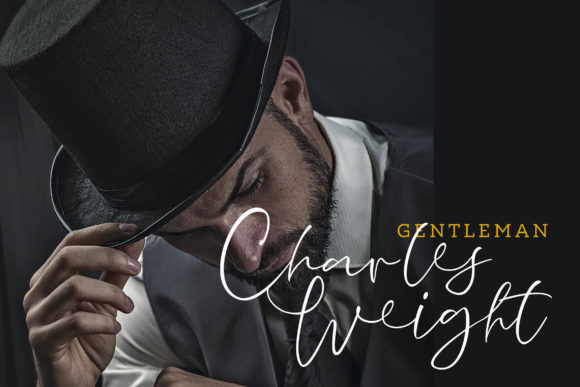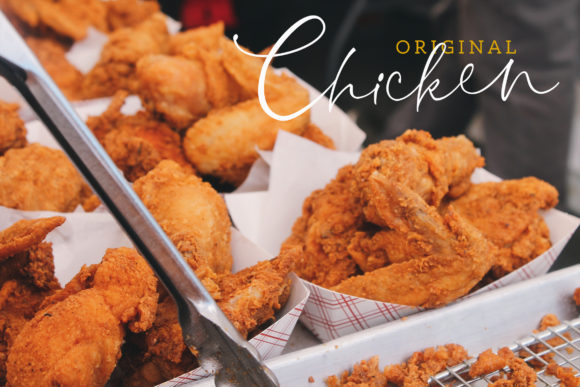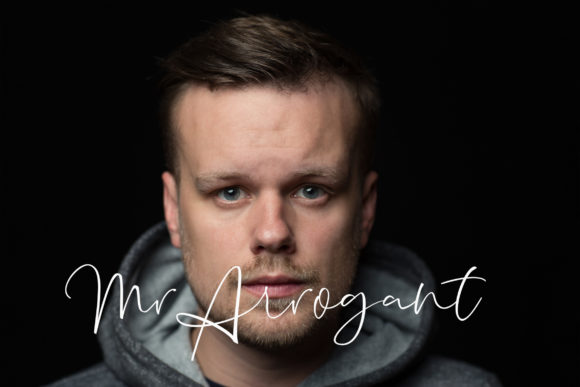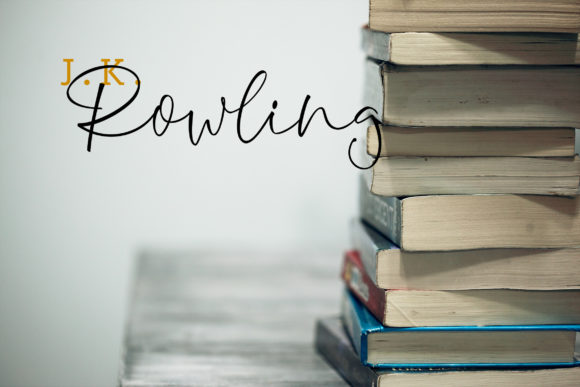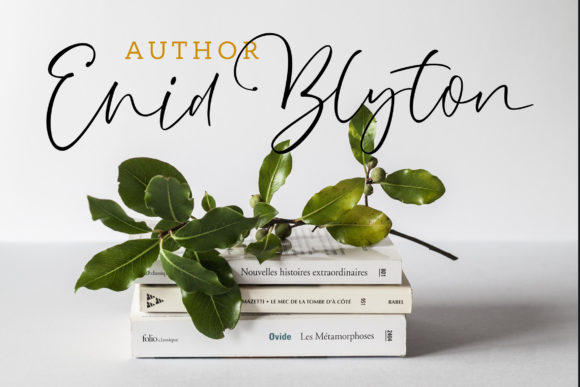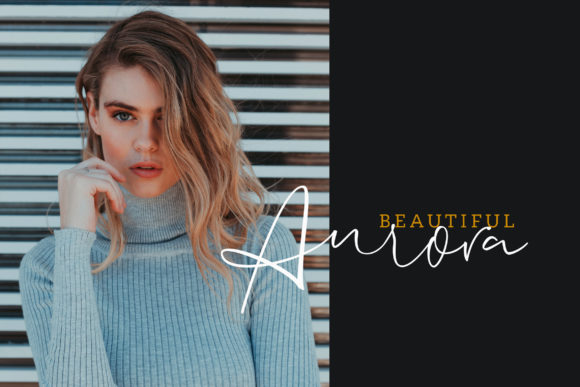
Aussiente Font: A Timeless Classic for Designers and Crafters
The Aussiente font is a beautiful, classic signature font that has been inspired by the elegance of traditional posters. Its unique design makes it perfect for a wide range of creative projects, from logos and letterheads to posters, apparel, labels, and much more. In this article, we’ll take a closer look at the Aussiente font, its features, and how it can be used to elevate your designs.
A Classic Signature Font
The Aussiente font is a classic signature font that exudes elegance and sophistication. Its design is reminiscent of traditional posters, with flowing lines and intricate details that give it a unique and distinctive look. The font is perfect for designers and crafters who want to add a touch of classic style to their projects.
Inspired by Traditional Posters
The Aussiente font was inspired by the classic posters of the past, which were known for their bold typography and eye-catching designs. The font’s design is influenced by the art of poster making, with its bold lines, flowing curves, and intricate details. This inspiration is evident in the font’s unique design, which is both elegant and eye-catching.
The Aussiente font is incredibly versatile and can be used for a wide range of creative projects. Its classic design makes it perfect for:
- Logos: The Aussiente font is perfect for creating elegant and sophisticated logos that will help your brand stand out.
- Letterheads: Add a touch of classic style to your letterheads with the Aussiente font.
- Posters: The Aussiente font is perfect for creating eye-catching posters that will grab attention.
- Apparel: Use the Aussiente font to create stylish and elegant apparel, such as t-shirts, mugs, and tote bags.
- Labels: The Aussiente font is perfect for creating labels that are both functional and stylish.
Key Features of the Aussiente Font
The Aussiente font has several key features that make it a great choice for designers and crafters. Some of its key features include:
- Elegant design: The Aussiente font has a unique and elegant design that is perfect for creating sophisticated projects.
- Classic style: The font’s classic style makes it perfect for creating projects that require a touch of tradition and elegance.
- Versatility: The Aussiente font is incredibly versatile and can be used for a wide range of creative projects.
- Easy to read: Despite its elegant design, the Aussiente font is easy to read, making it perfect for use in a variety of contexts.
Tips for Using the Aussiente Font
Here are a few tips for using the Aussiente font in your designs:
- Use it sparingly: The Aussiente font is a bold and elegant font, so use it sparingly to avoid overwhelming your design.
- Pair it with other fonts: The Aussiente font pairs well with other fonts, so experiment with different combinations to find the perfect look for your project.
- Experiment with colors: The Aussiente font looks great in a variety of colors, so experiment with different colors to find the perfect look for your project.
The Aussiente font is a beautiful, classic signature font that is perfect for designers and crafters who want to add a touch of elegance and sophistication to their projects. Its unique design, inspired by traditional posters, makes it perfect for a wide range of creative projects, from logos and letterheads to posters, apparel, labels, and much more. With its elegant design, classic style, and versatility, the Aussiente font is a great choice for anyone looking to create sophisticated and eye-catching designs.